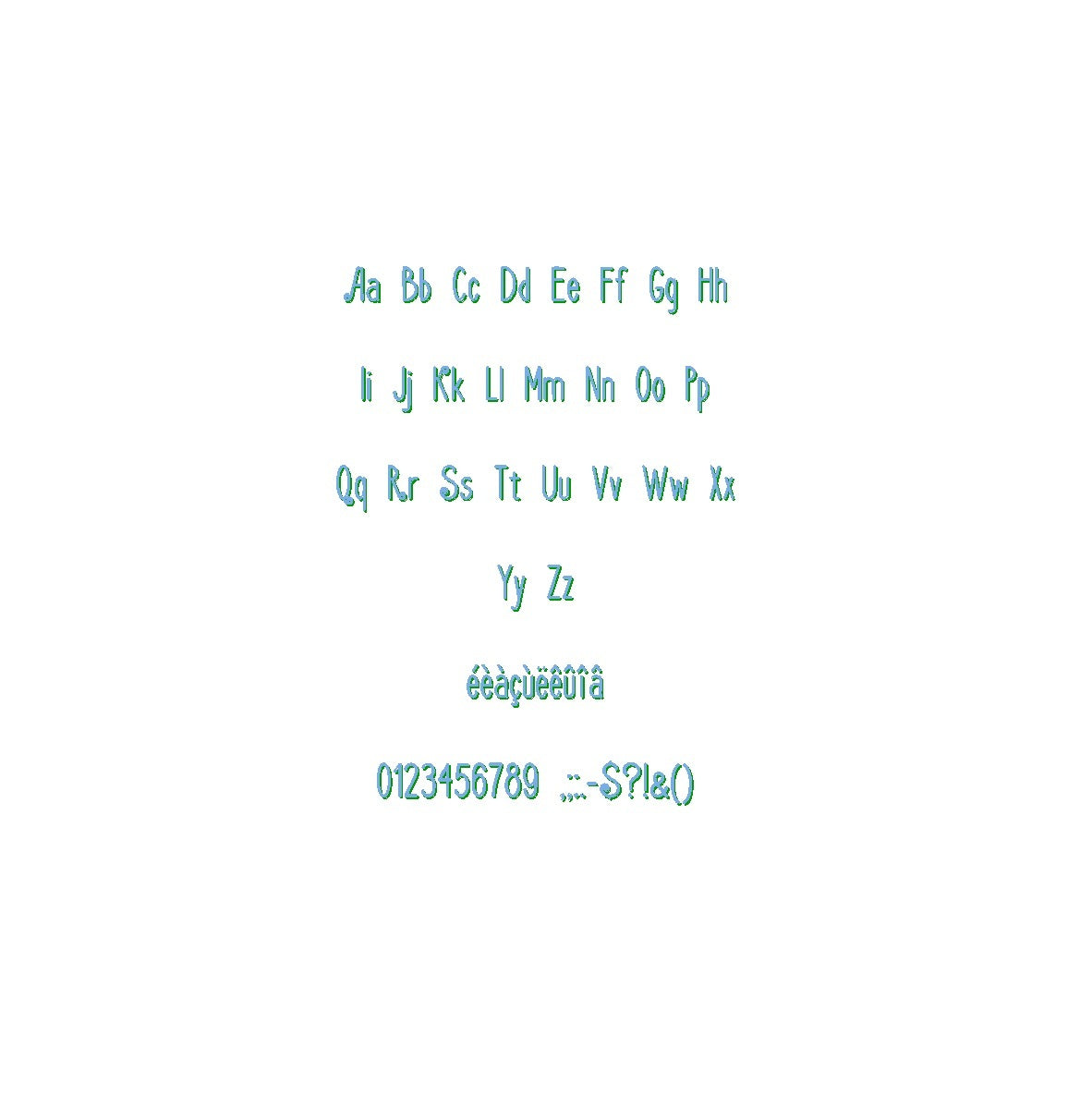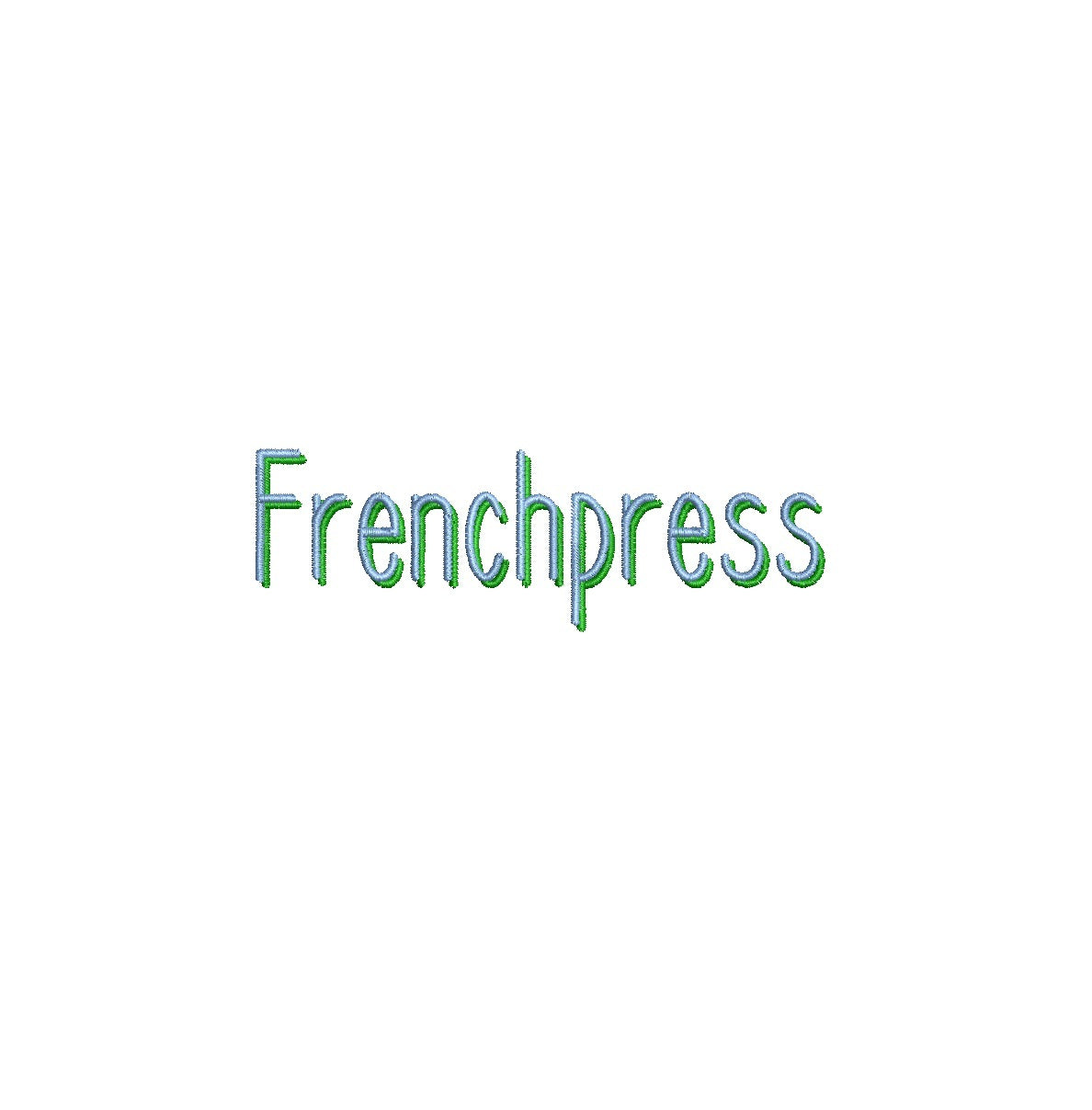
Elevate your designs with the stylish Frenchpress Shadow ESA font. Fully compatible with Wilcom Studio e4.5.6 and Hatch 3 versions and up, this font brings a touch of contemporary flair and artistic elegance to your projects. The intricate shadows and sleek lines of this font create a captivating visual impact that sets your designs apart. Streamline your creative process and achieve flawless results by utilizing this font with industry-leading software. Upgrade your projects with the compatibility of Frenchpress Shadow ESA font and craft visuals that exude modern sophistication. Embrace creativity and refinement for your design journey today!